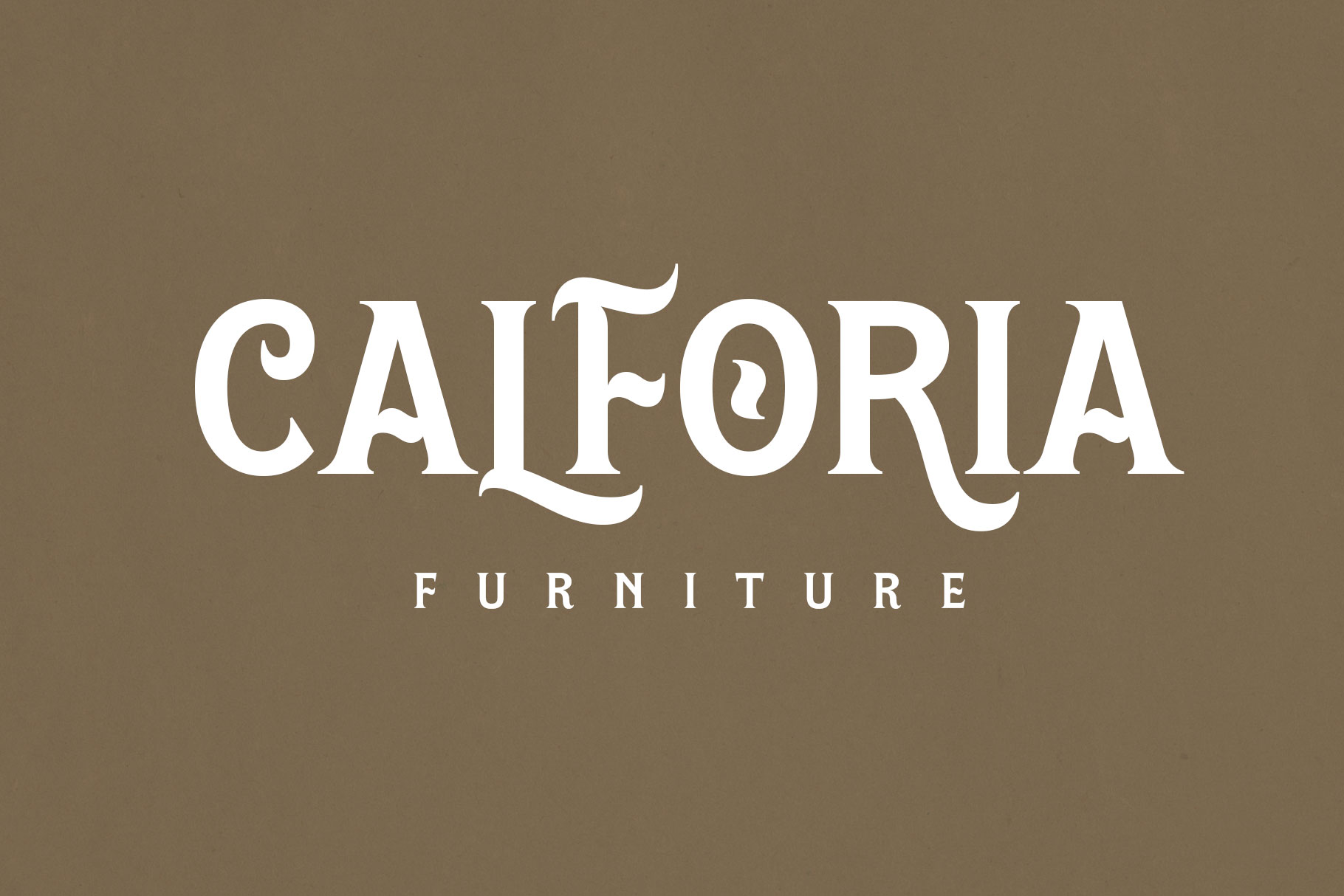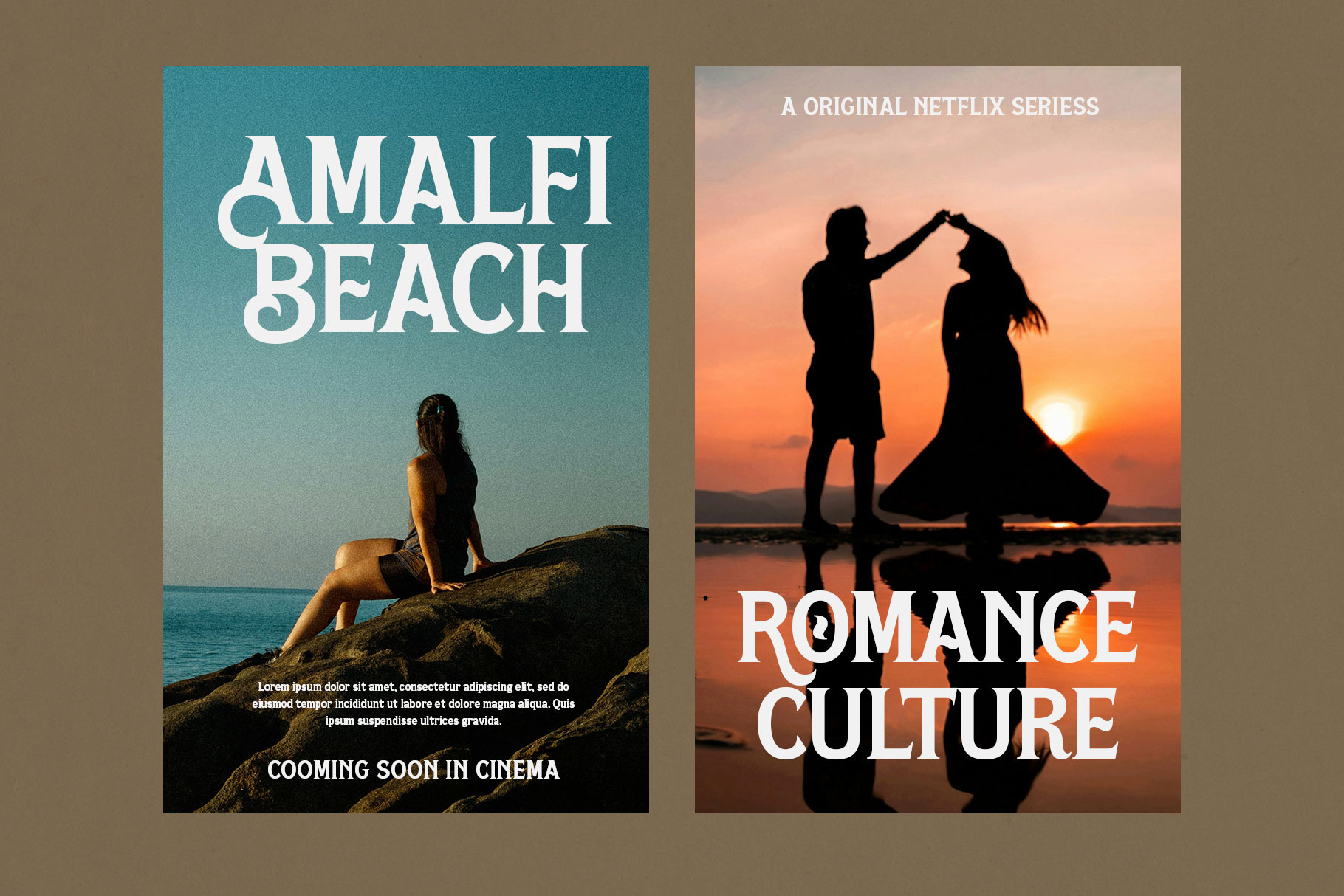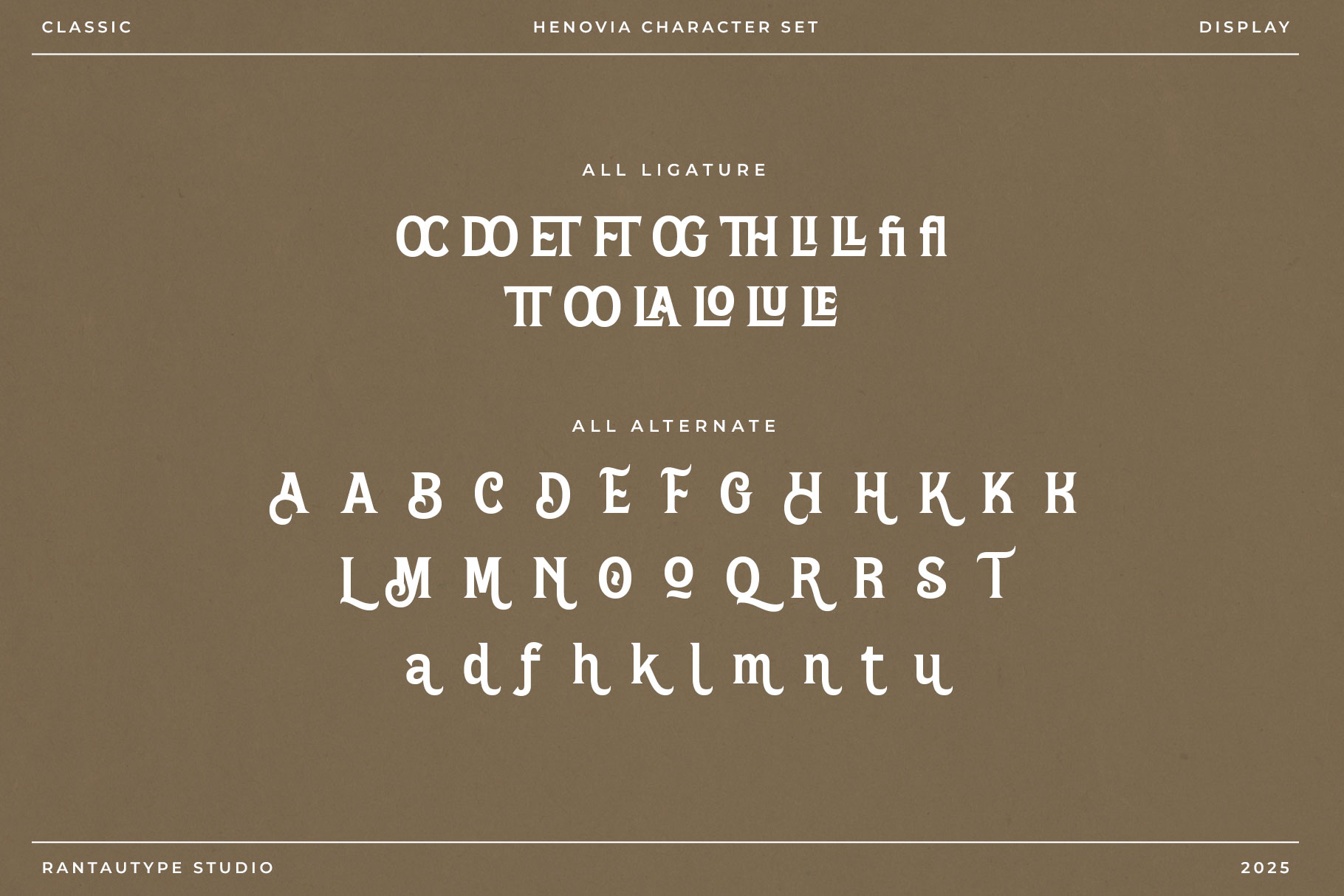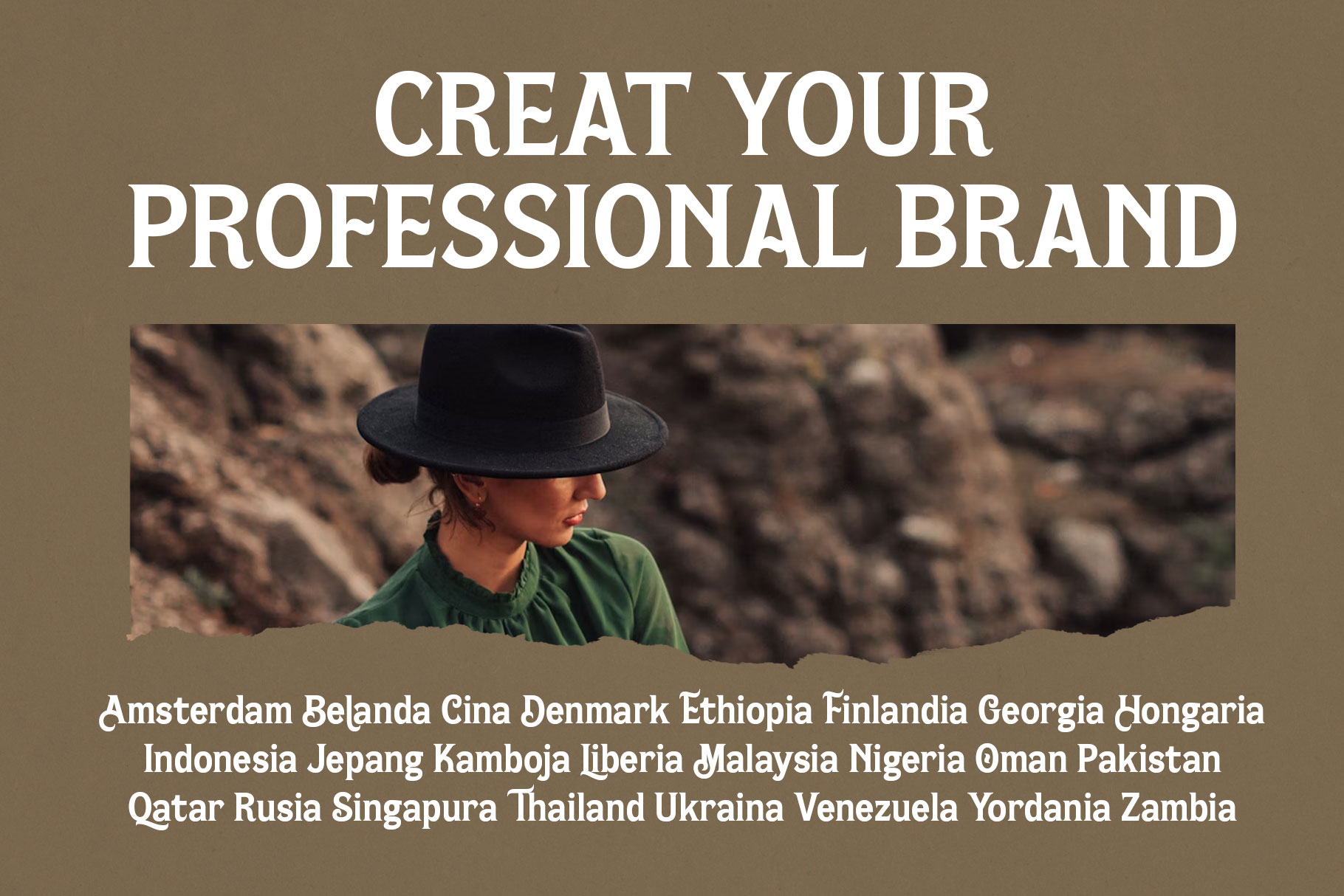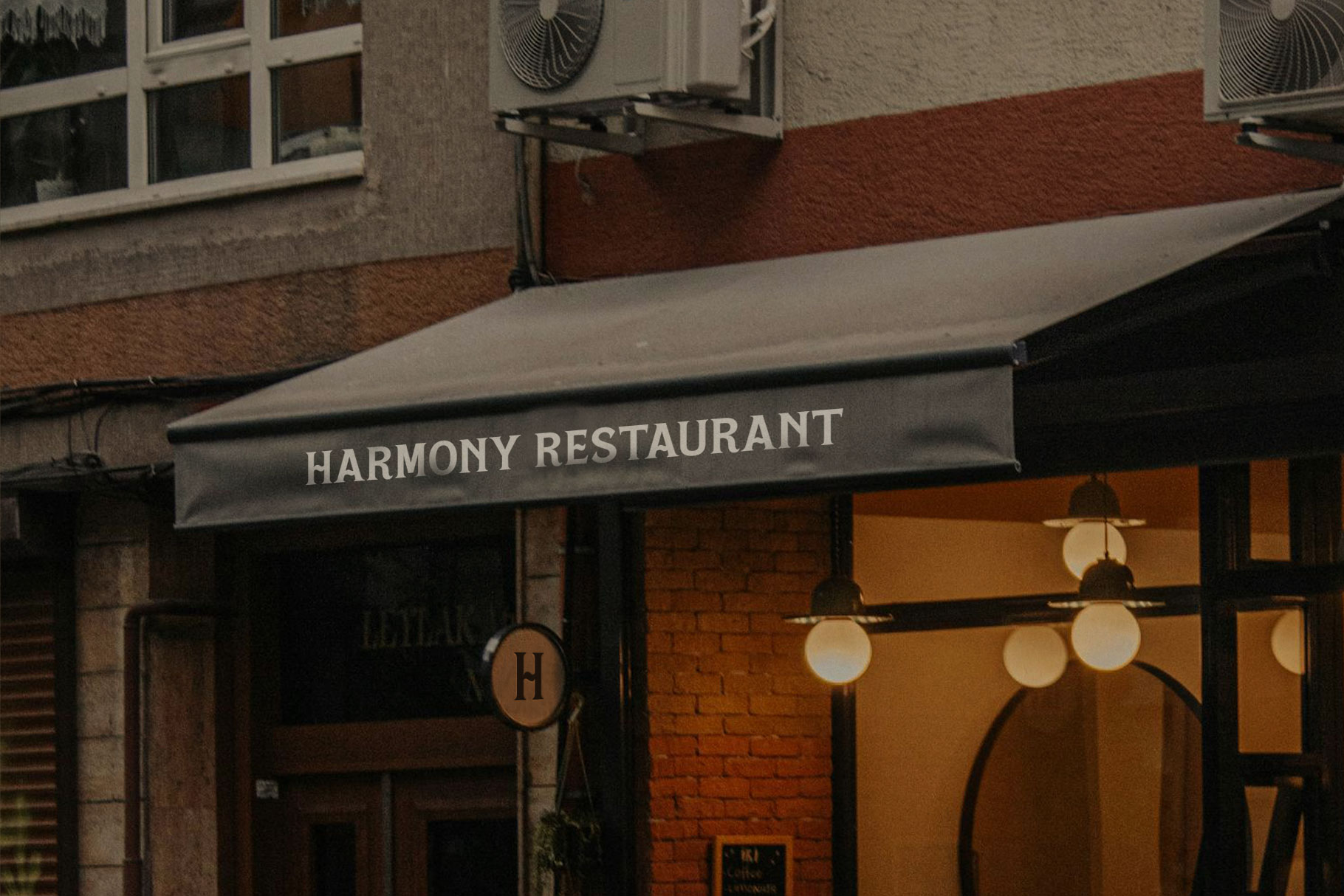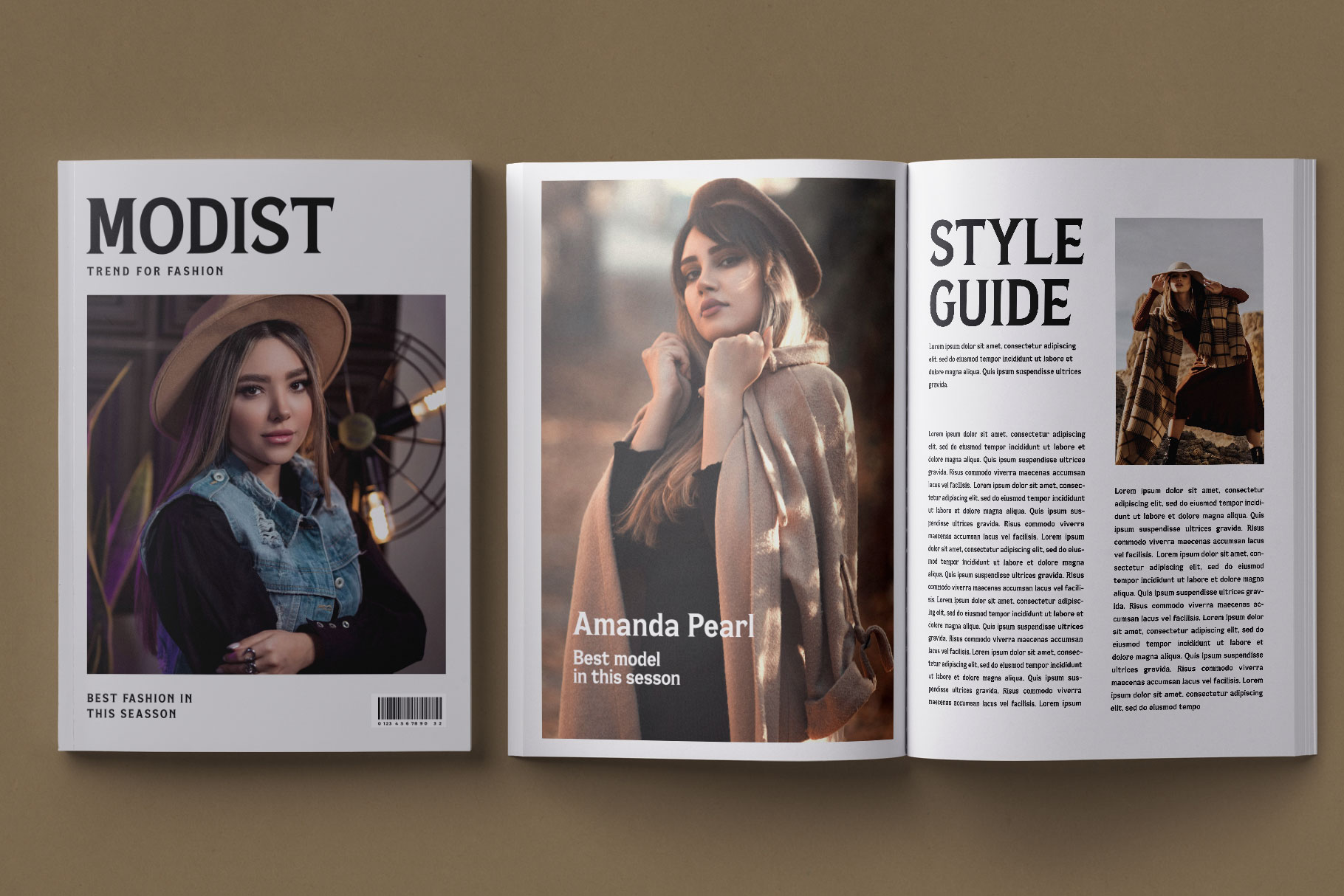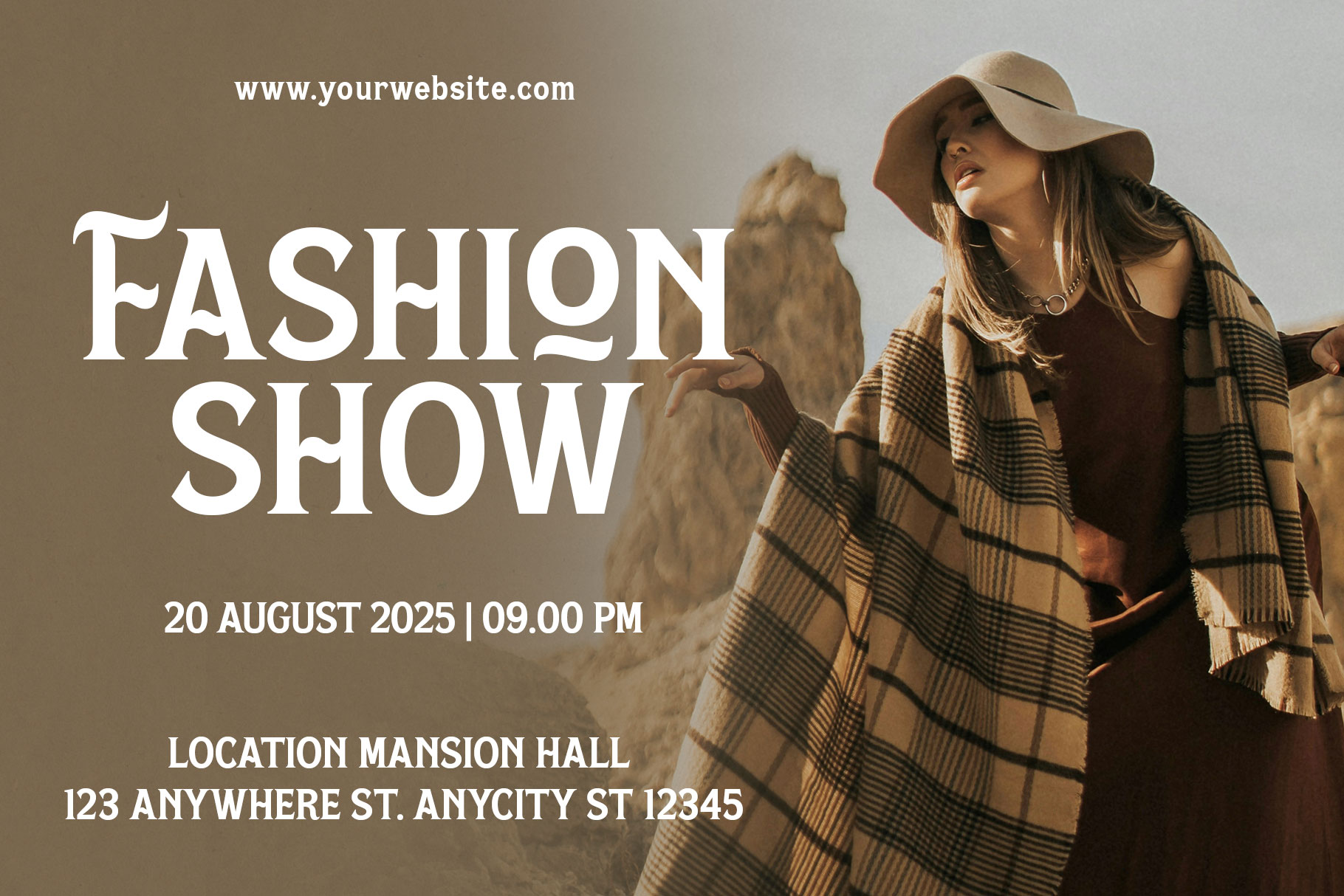
Henovia Classic Serif Font
Henovia a classic serif font is the epitome of timeless elegance and refined sophistication, embodying a sense of tradition that has stood strong for centuries. Recognized by its distinctive small lines or “serifs” that extend from the ends of each letterform, this font style carries a graceful charm that instantly conveys professionalism, heritage, and authority.
Henovia is a perfectly choice for any creative endeavor, chic, lifestyle design such as logotype, advertisements, watermark on photography, stationery, branding project, display and magazine, invitation, corporate brand, product design, label, business project and many other project with retro touch.